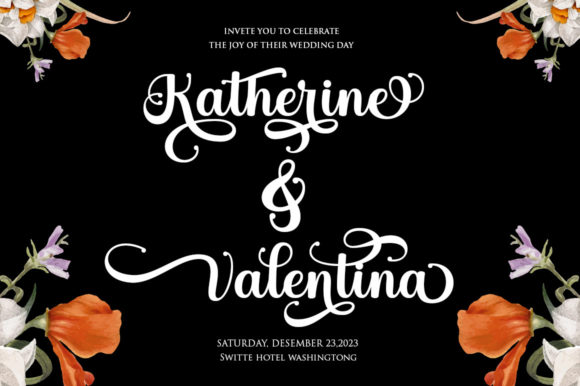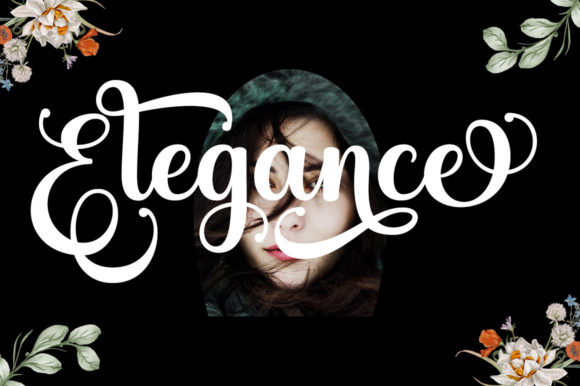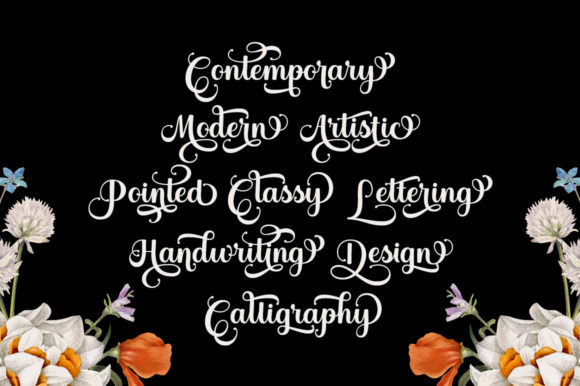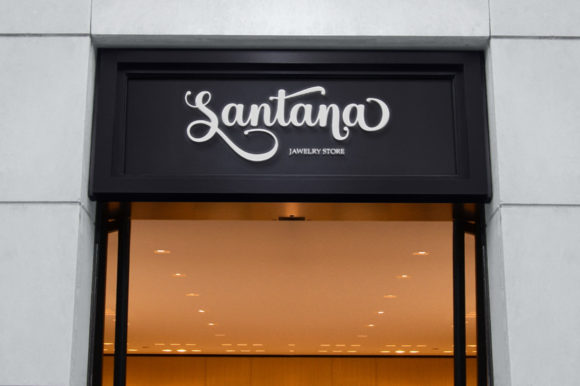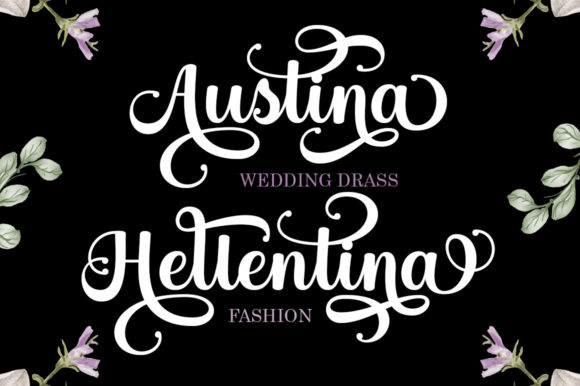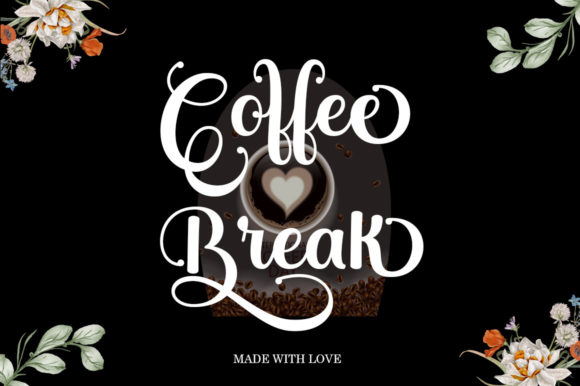
Introducing Bertha Script Font: The Epitome of Elegance and Charm
Are you a designer or crafter looking for a font that exudes elegance and charm? Look no further than the Bertha Script Font. This beautiful font is perfect for adding a handwritten touch to various designs, making it an ideal choice for wedding invitations, thank you cards, quotes, greeting cards, logos, business cards, and more.
The Characteristics of Bertha Script Font
Bertha Script Font is a stunning script font that feels equally charming and elegant. Its unique and flowing design makes it perfect for creating beautiful and eye-catching designs. The font is PUA encoded, which means you can access all of the glyphs and swashes with ease. This feature makes it easy to use and customize, allowing you to create unique and personalized designs.
Uses of Bertha Script Font
Bertha Script Font is a versatile font that can be used for a variety of design projects. Some of the most popular uses of this font include:
- Wedding Invitations: Add a touch of elegance and sophistication to your wedding invitations with Bertha Script Font.
- Thank You Cards: Express your gratitude with beautifully designed thank you cards featuring Bertha Script Font.
- Quotes: Create stunning quote designs that showcase the beauty of Bertha Script Font.
- Greeting Cards: Add a personal touch to your greeting cards with Bertha Script Font.
- Logos: Create a unique and memorable logo for your business or brand with Bertha Script Font.
- Business Cards: Stand out from the crowd with beautifully designed business cards featuring Bertha Script Font.
Benefits of Using Bertha Script Font
Bertha Script Font offers several benefits to designers and crafters. Some of the most significant advantages of using this font include:
- Elegant and Charming Design: Bertha Script Font features a unique and elegant design that adds a touch of sophistication to any design.
- PUA Encoding: The font is PUA encoded, making it easy to access all of the glyphs and swashes.
- Versatility: Bertha Script Font can be used for a variety of design projects, making it a great addition to any designer’s or crafter’s collection.
- Easy to Use: The font is easy to use and customize, allowing you to create unique and personalized designs.
Tips for Using Bertha Script Font
To get the most out of Bertha Script Font, here are a few tips to keep in mind:
- Pair with Other Fonts: Pair Bertha Script Font with other fonts to create a unique and visually appealing design.
- Experiment with Colors: Experiment with different colors to find the perfect combination that complements Bertha Script Font.
- Use Swashes and Glyphs: Take advantage of the PUA encoding feature and use swashes and glyphs to add a personal touch to your designs.
Bertha Script Font is a beautiful and elegant font that is perfect for designers and crafters looking to add a handwritten touch to their designs. With its PUA encoding feature, versatility, and ease of use, this font is a great addition to any design collection. Whether you’re creating wedding invitations, thank you cards, quotes, greeting cards, logos, business cards, or more, Bertha Script Font is sure to impress.